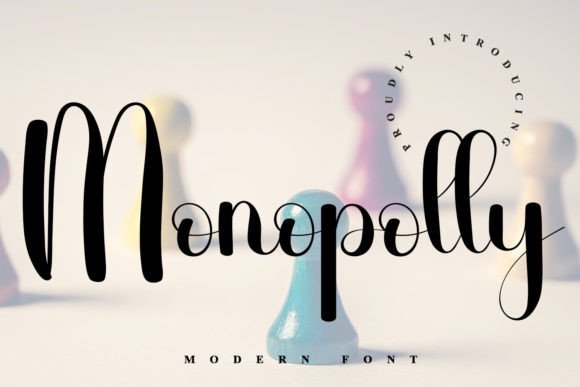
Introducing Monopolly Font: The Ultimate Script Font for School Papers and Beyond!
In the vast world of typography, there's a font that stands out as a true gem – Monopolly Font, the latest creation from the esteemed font designer, ABBAsalam. It's a captivating script font, meticulously crafted to infuse your school papers and creative projects with a touch of elegance and sophistication.
Experience the beauty of Monopolly Font, a versatile font family that will transform your words into a visual masterpiece. With its intricate ligatures and flowing characters, this font is sure to leave an unforgettable impression on your readers and make your projects shine.
Unleash your creativity with Monopolly Font and open up a world of possibilities. Its natural and unique style makes it incredibly fitting for a large pool of designs, including wedding invitations, posters, flyers, social media graphics, and so much more. The only limit is your imagination!